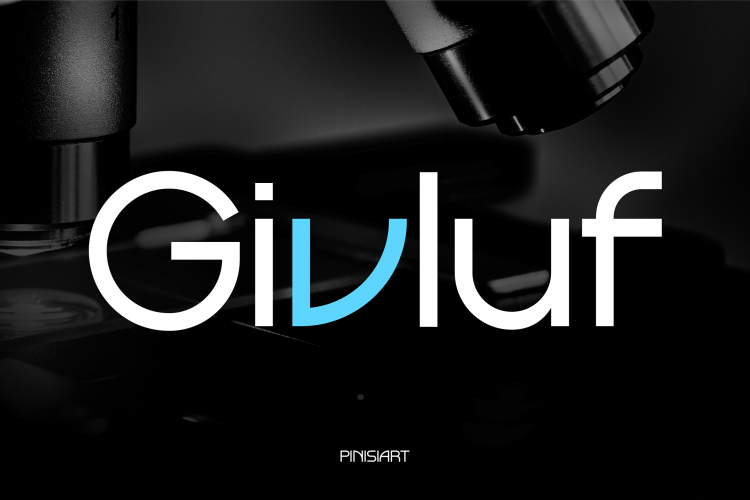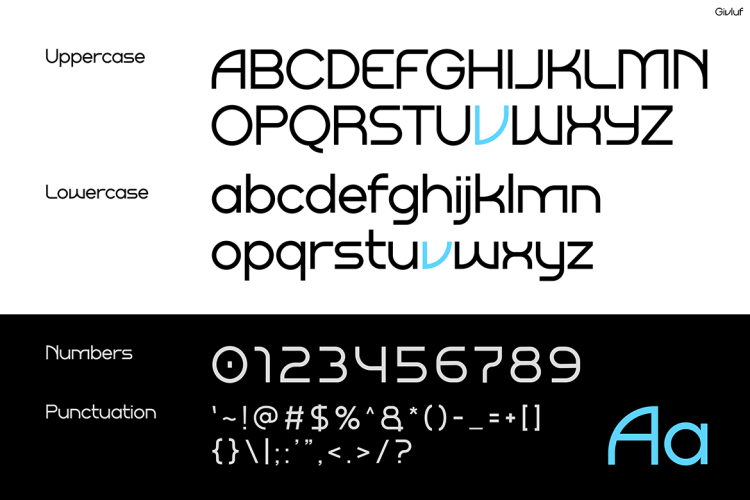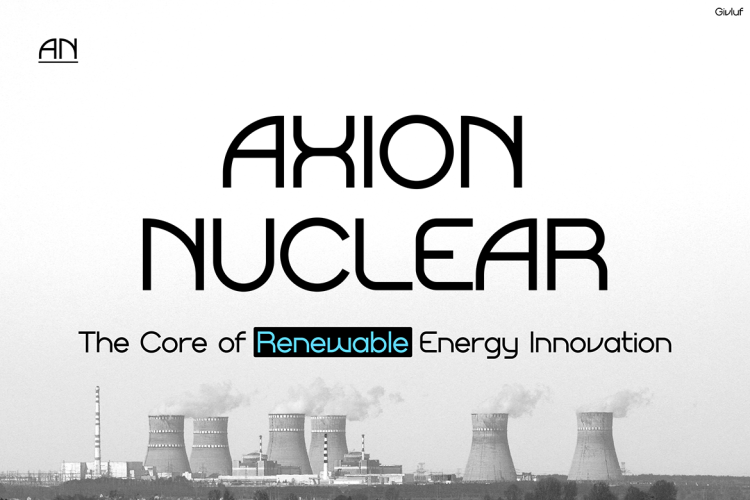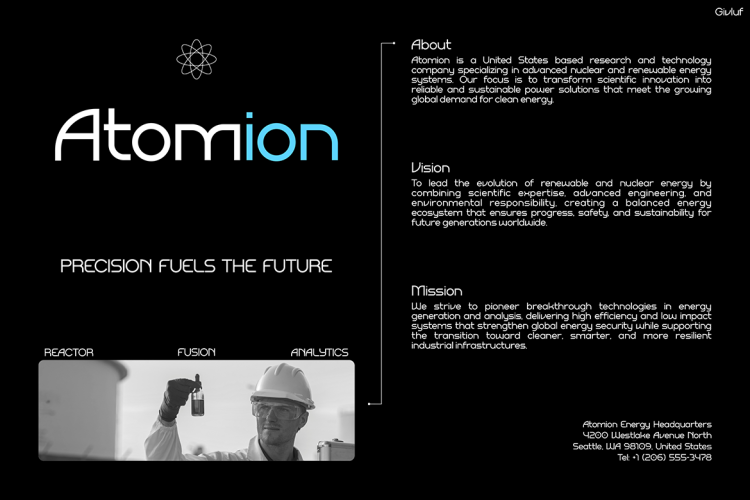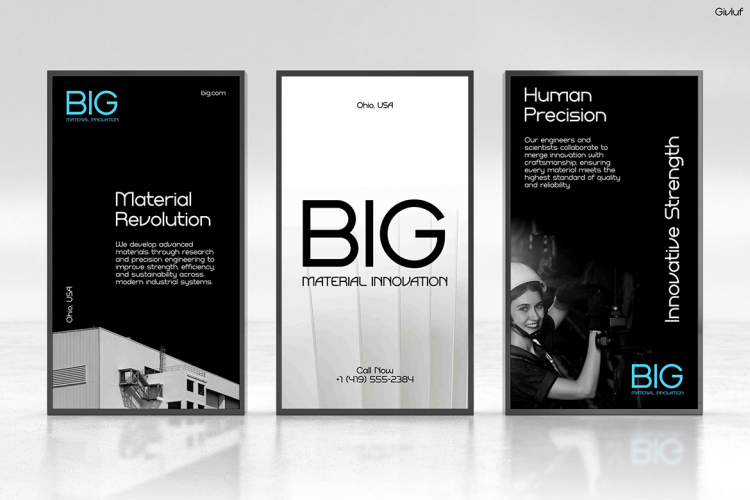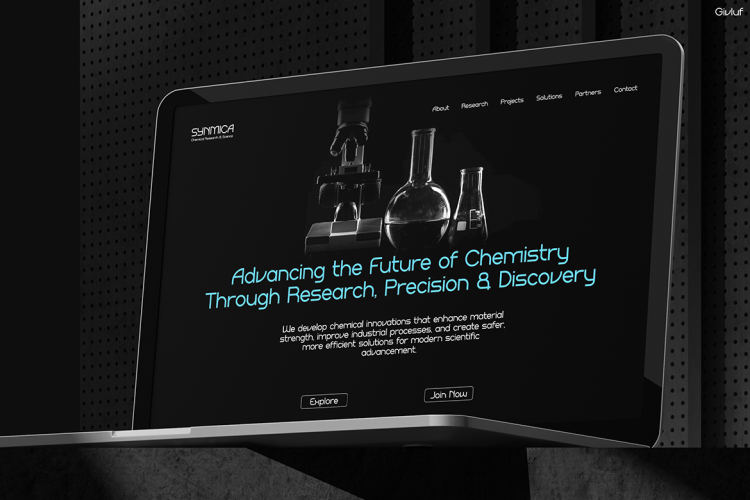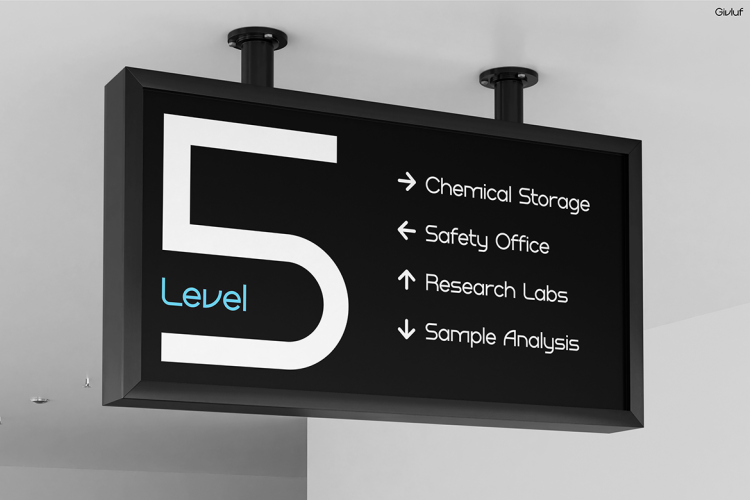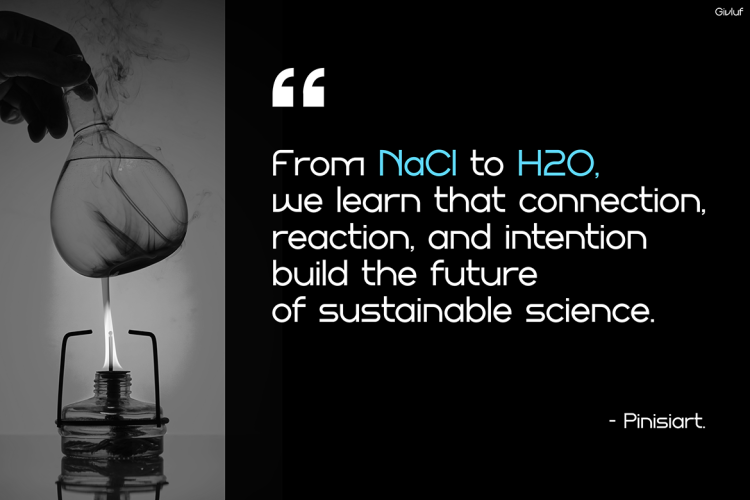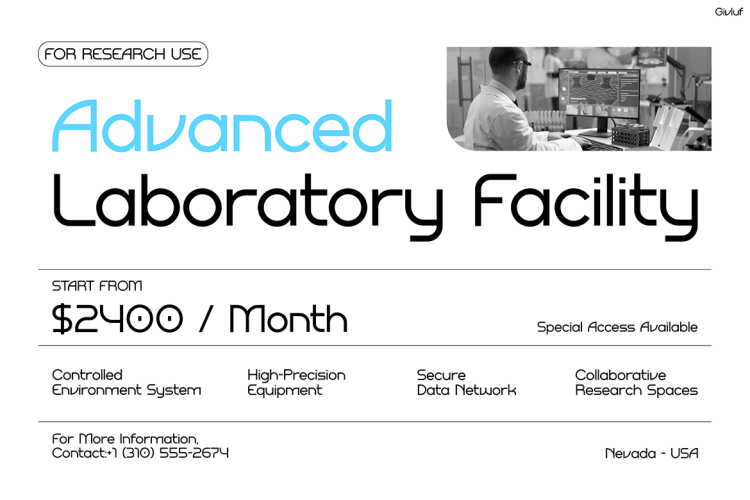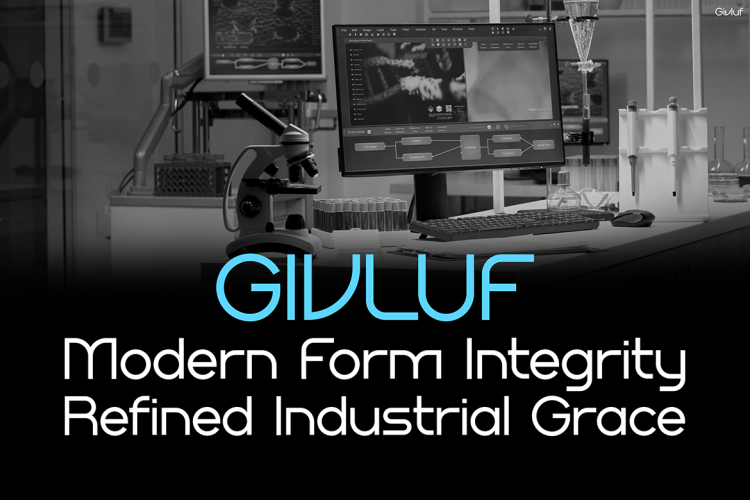
Futuristic Font Givluf โ Where Science Meets Sleek Design
Futuristic Font Givluf is more than just typography โ itโs a forward-thinking expression of innovation and clarity. Inspired by the balance between technology and precision, this font merges scientific formality with modern minimalism. Its rounded edges, clean geometry, and refined rhythm create an elegant harmony that feels both futuristic and approachable. Moreover, its design reflects intelligence, order, and modern aesthetics, making it perfect for projects that seek visual sophistication.
Each character in Givluf is carefully crafted to achieve seamless readability while maintaining a unique futuristic touch. Because of its smooth balance and proportional construction, this font adapts effortlessly to both digital and print applications. Therefore, whether you are designing a modern logo, crafting tech-based branding, or creating editorial layouts, Givluf delivers a look that feels advanced yet timeless. Additionally, its subtle geometry ensures that every composition communicates precision and confidence.
Ideal For Creative Professionals and Modern Innovators
Futuristic Font Givluf was created for designers, thinkers, and innovators who aim to bridge creativity and technology. It works beautifully for technology companies, science laboratories, engineering projects, architectural presentations, and digital agencies. Furthermore, itโs ideal for UI/UX designers, corporate branding experts, and marketing creatives who want their designs to express intelligence and futuristic energy.
Because of its versatility, Givluf transitions smoothly from minimalist web designs to bold advertising visuals. It also fits perfectly in corporate identity systems, presentation decks, product packaging, and research-based publications. Thus, no matter the medium, this typeface communicates progress, precision, and modernity.
Shape the Future of Your Design
Ultimately, Futuristic Font Givluf empowers your designs with a forward-looking aesthetic. Its sleek structure and refined details make it stand out as a statement of innovation and design intelligence. As a result, your projects will not only look professional but also feel visionary.